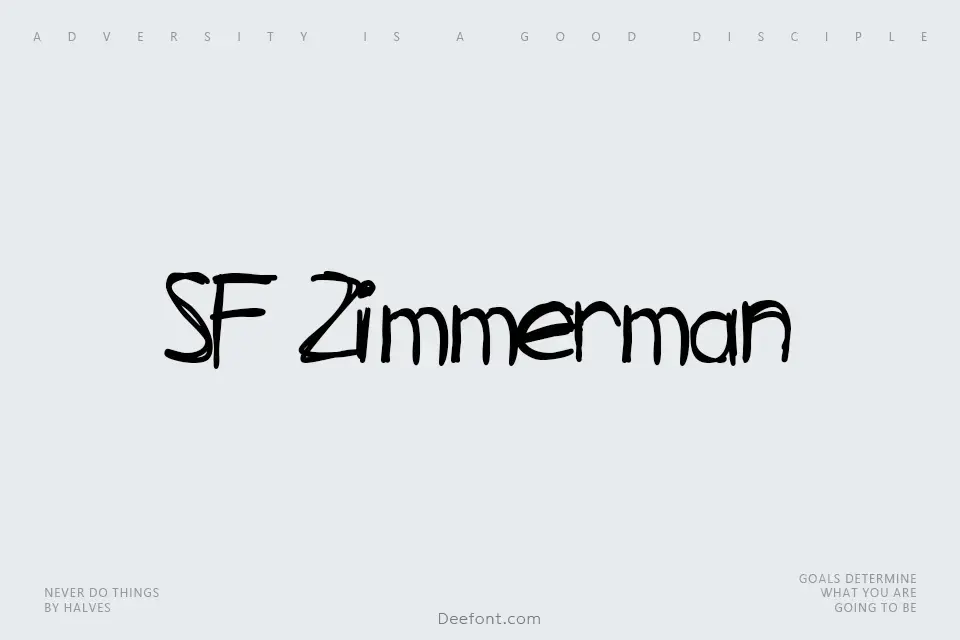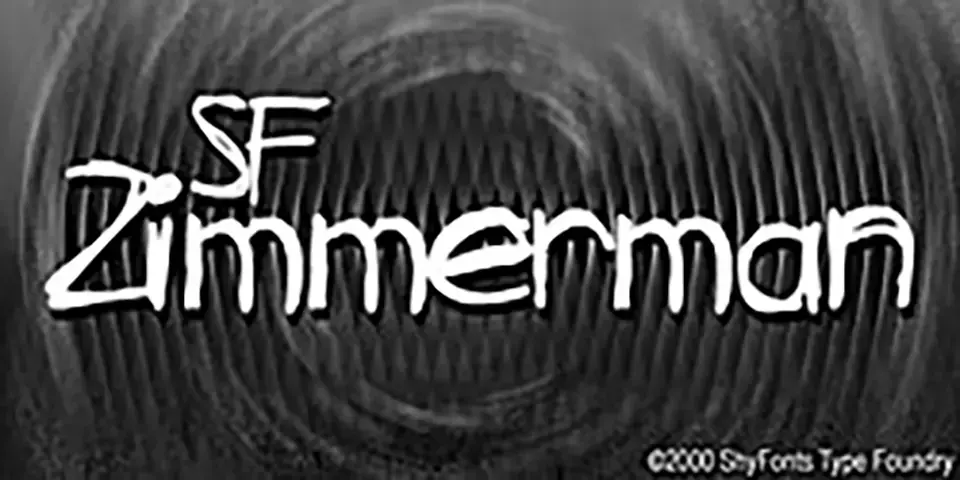
SF Zimmerman Font
SF Zimmerman is a distinctive display script typeface characterized by its jagged, distressed letterforms and unconventional stroke patterns. With its rough, irregular edges and chaotic elegance, this font delivers an edgy, unsettling visual quality ideal for creating atmospheric graphics. The design captures a trash aesthetic that evokes themes of decay and disorder, making it exceptionally well-suited for Halloween promotions, horror-themed posters, and provocative display applications. Perfect for designers seeking to convey an alternative, rebellious spirit in typography.
Designed by:ShyFoundry (Derek Vogelpohl)